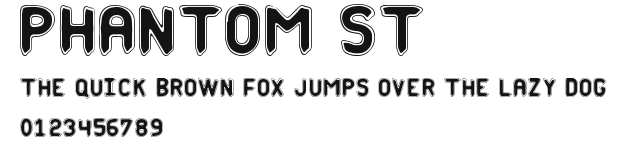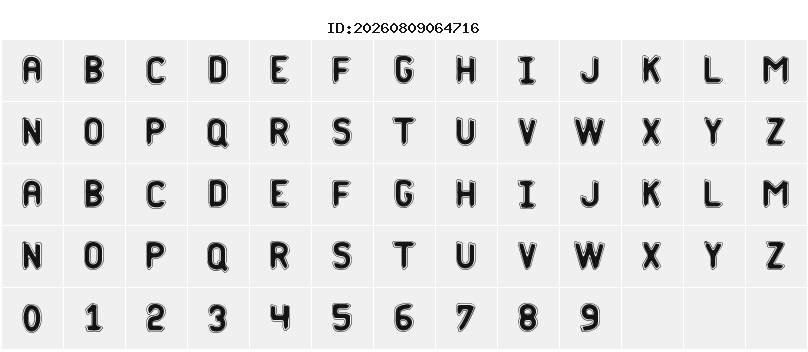
• Font Name: Phantom St
• Full Font Name: Phantom St
• Version: Version 1.00 June 3, 2014, initial release
Phantom St.ttf is a modern, elegant sans-serif font designed for ultimate readability and visual harmony. Perfect for branding, headlines, web design, and print materials.